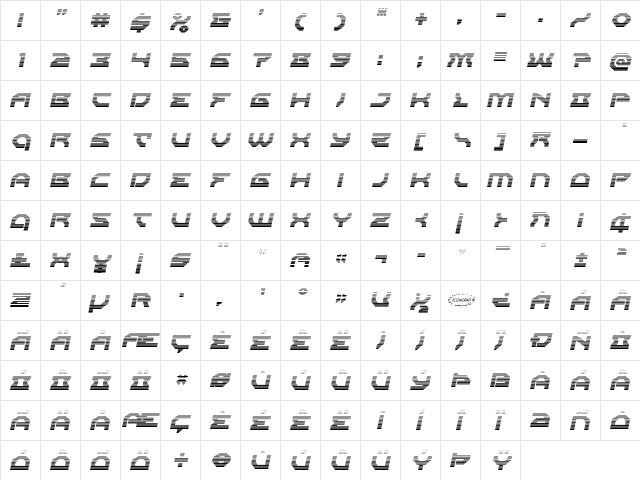
Xeno-Demon Gradient Italic Italic
Design Context for Xeno-Demon Gradient Italic Typeface
Xeno-Demon Gradient Italic takes a measured approach to typography — its balanced proportions and neutral character make it a reliable workhorse for both digital and print work. The slanted form adds forward momentum and visual energy.